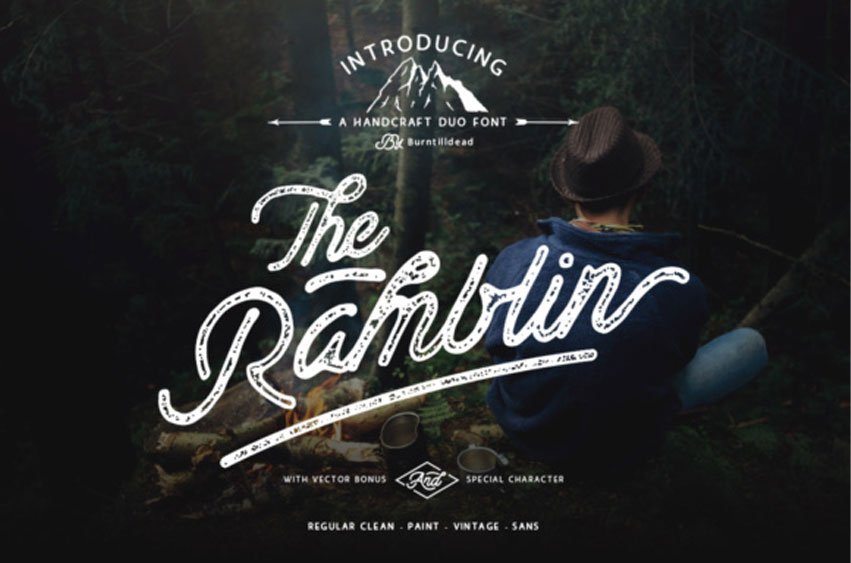
Ramblin Font is a gorgeous font duo, perfect for use in hipster or retro oriented designs! This script font is inspired from ink and brush strokes, crafted to created a naturally messy yet intriguing set of characters.
This set is a great way to add tons of style and texture to your designs.